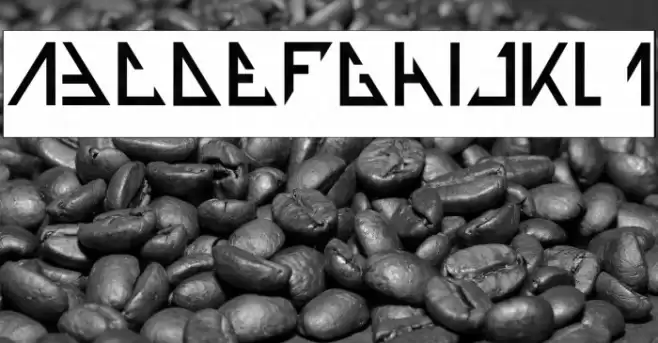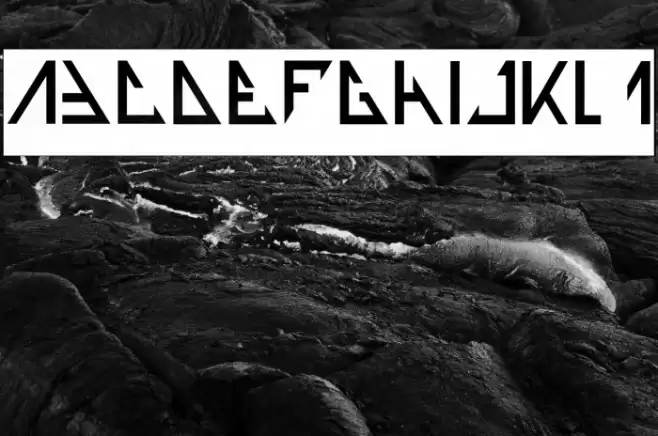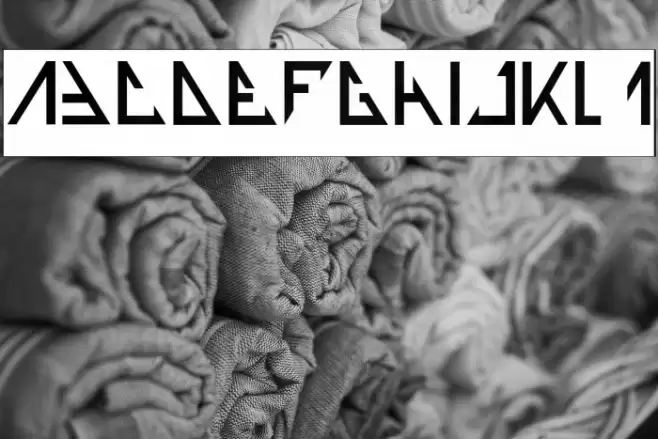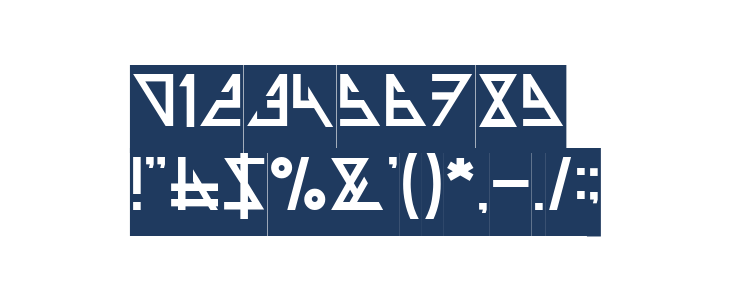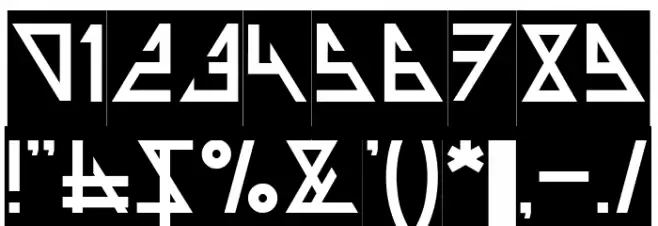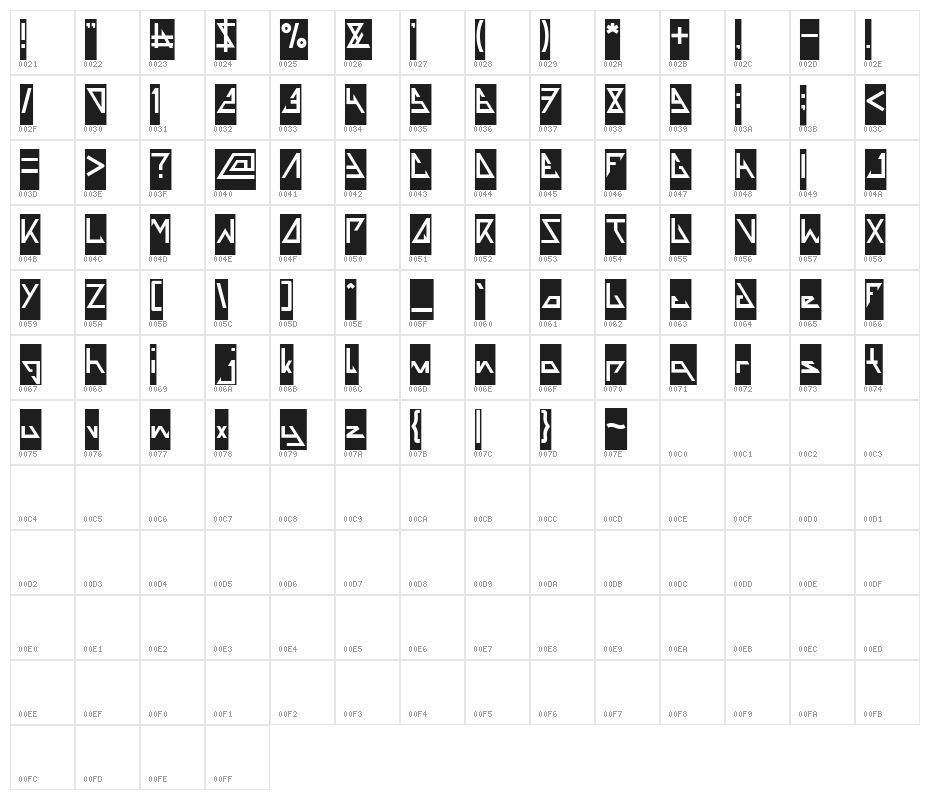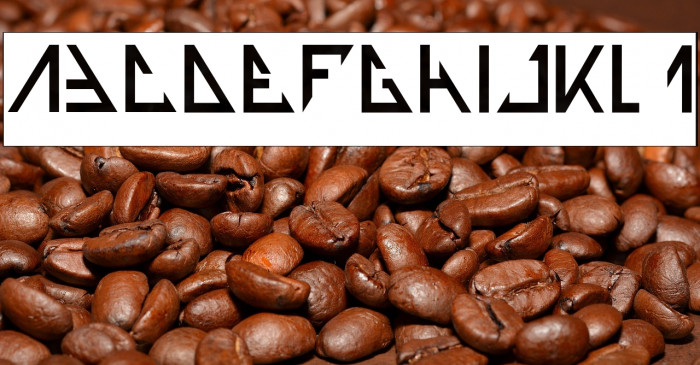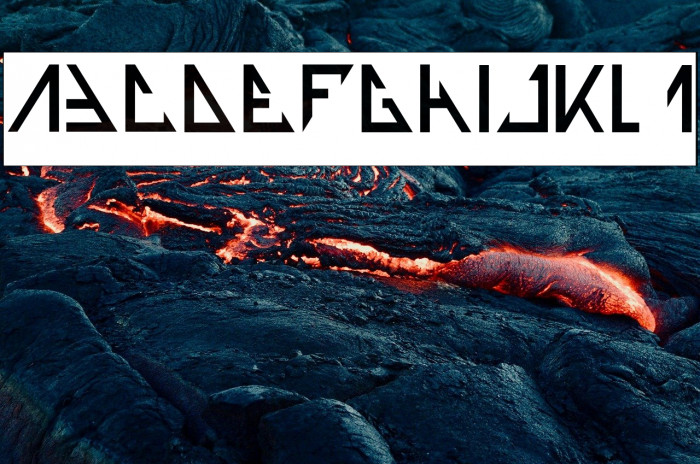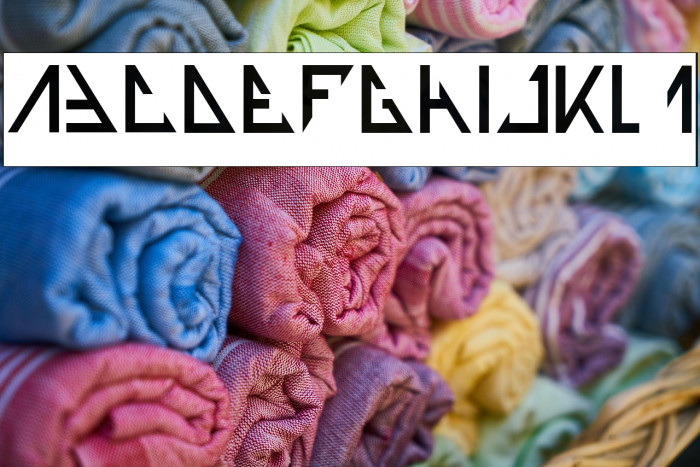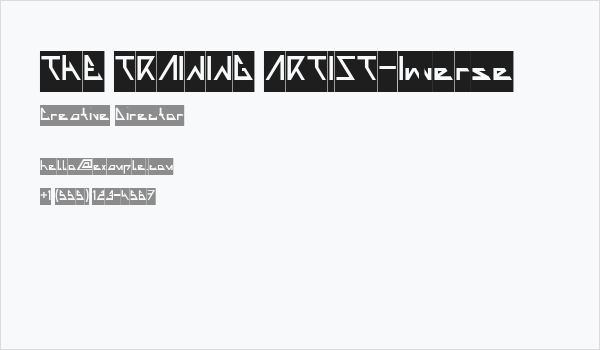
THE TRAINING ARTIST-Inverse Font
THE TRAINING ARTIST-Inverse Description
This font features a bold, geometric design with sharp angles and a futuristic aesthetic. The characters are constructed with a mix of straight lines and diagonal cuts, giving them a dynamic and edgy appearance. The uppercase and lowercase letters maintain a consistent style, with the lowercase being slightly more compact. Numbers and special characters follow the same angular theme, ensuring uniformity across all glyphs. The font's unique style makes it stand out, making it suitable for projects that require a modern and distinctive look.
A bold, geometric font with sharp angles and a futuristic style from Uncategorized fonts.
- Font: THE TRAINING ARTIST-Inverse
- Proposed Projects: Ideal for sci-fi themed designs, video game graphics, modern branding, and tech-related projects.
- Overall Style: Futuristic
THE TRAINING ARTIST-Inverse UPPERCASE
THE TRAINING ARTIST-Inverse LOWERCASE
THE TRAINING ARTIST-Inverse OTHER CHARS